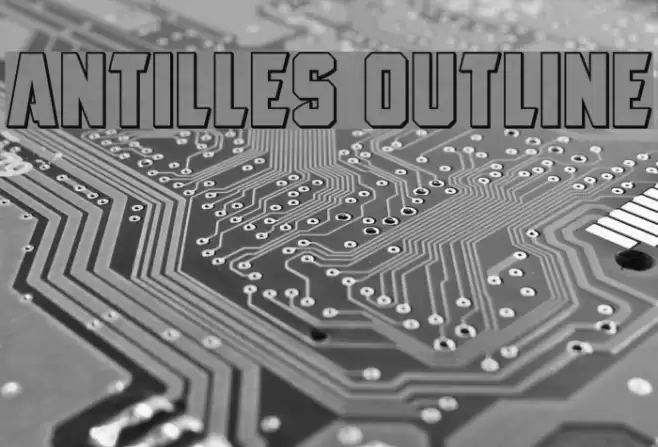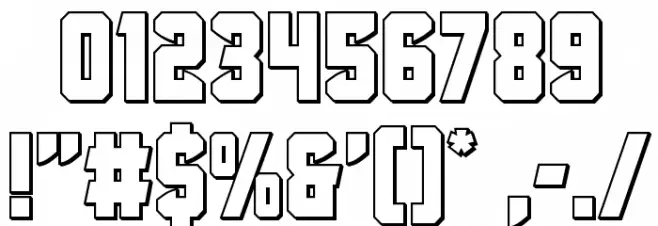
Antilles Outline Font
Antilles Outline Description
This font features a bold, geometric design with a distinct outline style that gives it a strong, impactful presence. The uppercase letters are characterized by sharp angles and straight lines, creating a modern and industrial feel. The numbers and special characters maintain this consistency, ensuring a cohesive look across all glyphs. The outline effect adds a layer of depth, making the font suitable for eye-catching designs. Its structured appearance makes it ideal for projects that require a bold statement.
A bold, geometric outline font with a modern, industrial feel from Sci-fi fonts.
- Proposed Projects: Ideal for posters, logos, headlines, and any design that requires a strong visual impact.